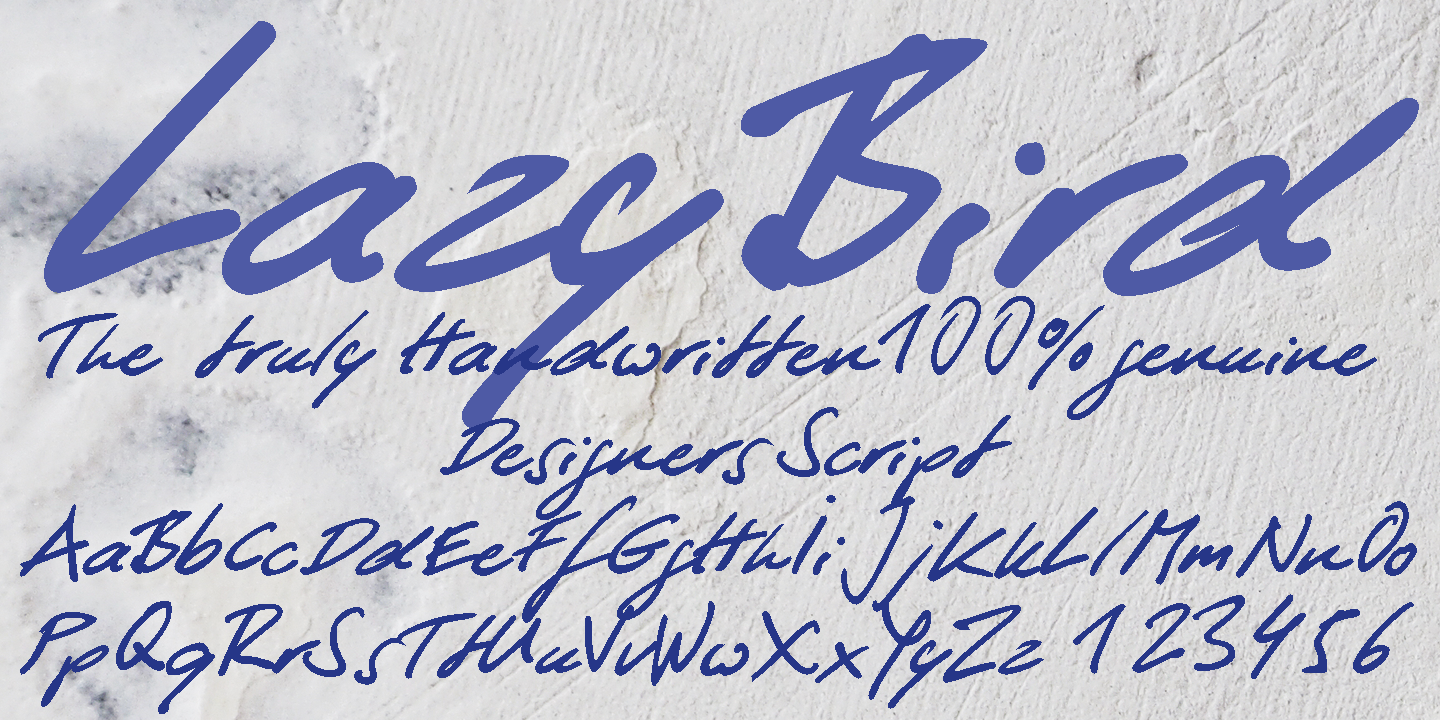
LazyBird Font is perfect for relaxed lifestyle blogs, cozy coffee shops, weekend retreat centers, laid-back vacation rentals, slow living brands, mindfulness apps, casual home décor, comfortable sleepwear companies, leisure activity centers, and peaceful wellness sanctuary designs.
LazyBird Font is exciting because it embodies the art of slow living and peaceful relaxation through gently flowing letterforms that capture the unhurried grace of a bird drifting on warm currents, making it perfect for brands celebrating the beauty of taking time and the wisdom of moving at nature's pace.
The LazyBird Font family includes regular weight with relaxed alternates, nature-inspired ornaments, and peaceful decorative elements, providing designers with tranquil tools for creating typography that breathes with authentic calm and encourages mindful living.
When your project needs peaceful relaxation and slow living appeal, LazyBird Font Free Download delivers the perfect typographic sanctuary for stress-free communications. This calming display typeface combines natural tranquility with contemporary functionality, ensuring your brands resonate with audiences seeking genuine peace and mindful living experiences. The gentle letterforms and peaceful styling make this font an essential choice for wellness brands, retreat centers, and any application where calm living, mindful relaxation, and natural peace are crucial for creating meaningful experiences that celebrate the profound beauty of slowing down and finding joy in life's quieter moments and simpler pleasures.